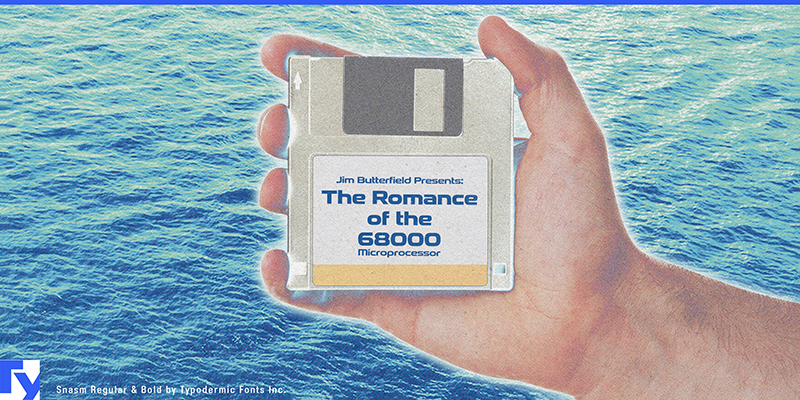
Snasm
Snasm channels the engineered optimism of late-20th-century technology. Softened edges and measured curves give the letters a tactile quality, like molded markings on a control panel. Its clean geometry works well in interfaces, branding, editorial design, packaging, and signage—anywhere clarity and quiet authority are needed. With a hint of retro-tech warmth, Snasm brings the confidence of classic hardware design into contemporary typography. These fonts include a license that allows free commercial use: sometimes referred to as a desktop license. This allows you to install the fonts on a computer and use them to create posters, web graphics, game graphics, t-shirts, videos, signs, logos and more. Read the license agreement for details. If you'd like to embed this font in an app, on the web or anything that's not covered by the desktop license agreement, visit the link below. You'll find distributors who offer different types of licenses, or you can contact me for help. https://typodermicfonts.com/snasm/ These free fonts are part of a larger font family. Check out the rest of the family through the link above.